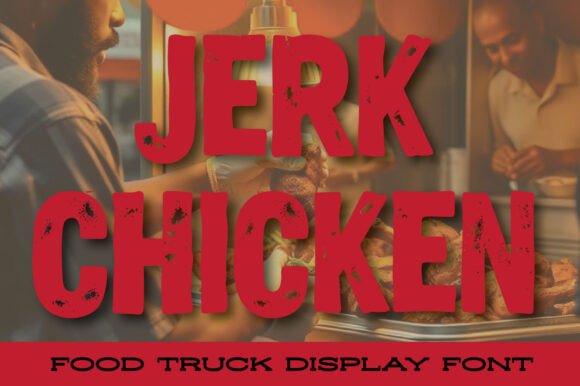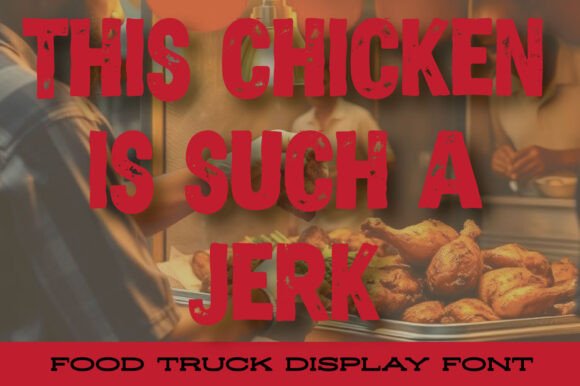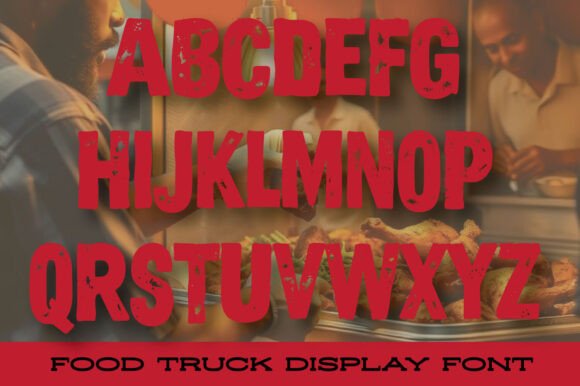
Jerk Chicken Font: Bold Display Font for Food Truck Branding
About the Jerk Chicken Font
Introducing the Jerk Chicken Font, a beautifully crafted typeface designed to elevate your creative projects. Spice up your designs with Jerk Chicken, a bold and flavorful distressed stamp-style font that packs a punch! With its rough, textured edges and commanding presence, this font is perfect for food trucks, menus, streetwear branding, or anything that needs a touch of raw, edgy personality.
Inspired by the vibrant, street-savvy energy of food culture, Jerk Chicken brings a bold, handcrafted feel to your projects. Whether you’re designing a sizzling logo, eye-catching signage, or mouthwatering social media posts, this font delivers the perfect balance of grit and flavor.
Turn up the heat with Jerk Chicken—it’s bold, it’s messy, it’s unforgettable.
Jerk Chicken Font Usage Examples
Jerk Chicken Font Example